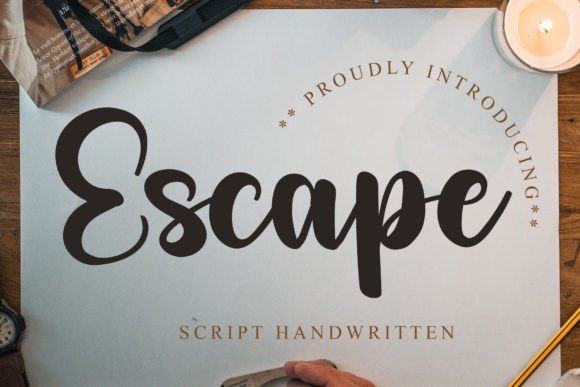
The Perfect Escape: Unleashing Creativity with a Timeless Font
Have you ever found yourself staring at a blank canvas, searching for that elusive spark that sets your design ablaze? For many creatives, it’s a moment of frustration, but for others, it’s a chance to explore and discover new inspiration. For me, it’s often the result of stumbling upon a font that perfectly captures the essence of my vision. And, I must say, Escape Font has been that spark for many designers.
This elegant script font is designed to evoke a sense of charm and sophistication, making it the perfect choice for wedding invitations, thank you cards, quotes, and more. With its beautiful handwritten touch, Escape Font adds a personal and emotional depth to any design, setting it apart from the ordinary. For designers, this font is a valuable asset, offering a unique way to express themselves and connect with their audience on a deeper level.
Escape Font Key Features
- Unique Character Set: Escape Font features a wide range of characters, including extended Latin, Cyrillic, and Greek alphabets, as well as symbols and emojis.
Escape Font Review
Overall, I have mixed feelings about the Escape Font. It’s a bold, modern font that has some unique qualities that can add a touch of edginess to your design projects. ✨
One of the things I like about Escape Font is its wide range of weights and styles. From light and elegant to bold and chunky, there’s a style to suit every design need. ✨ The font also has a unique, hand-drawn feel that can add a touch of personality to your designs. ✨
However, I do have some reservations about the font’s legibility, especially in smaller sizes. ⚠️ The font can become quite busy and cluttered, making it difficult to read at a glance. ⚠️ Additionally, some of the styles can feel a bit inconsistent, which can be jarring in certain contexts. ⚠️
Here are some of the things that work well in the Escape Font:
- Unique, hand-drawn feel
- Wide range of weights and styles
- Can add a touch of edginess to designs
And here are some of the limitations:
- Legibility can be an issue in smaller sizes
- Some styles can feel inconsistent
- Can be overwhelming in busy designs
Overall, I would say that the Escape Font is a solid choice for designers who want to add a bit of flair to their projects. However, it may not be the best choice for projects that require clear, easy-to-read typography.
Getting the Most Out of Escape Font
For optimal results, use Escape Font in combination with bold, italics, or all caps to create a visually striking effect. Experiment with different font sizes and line spacing to achieve the desired balance.
Escape Font is ideal for:
- Designing posters and flyers.
- Creating social media graphics.
- Developing brand identities.